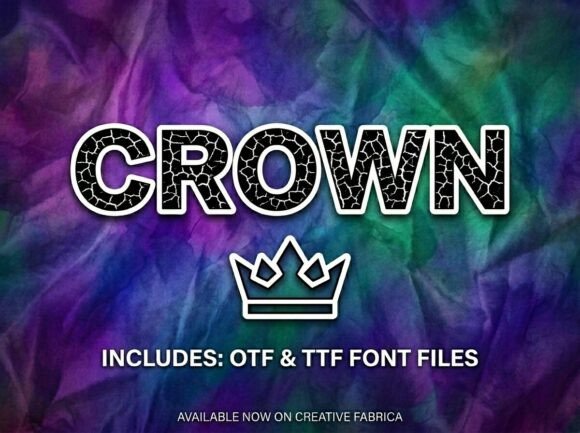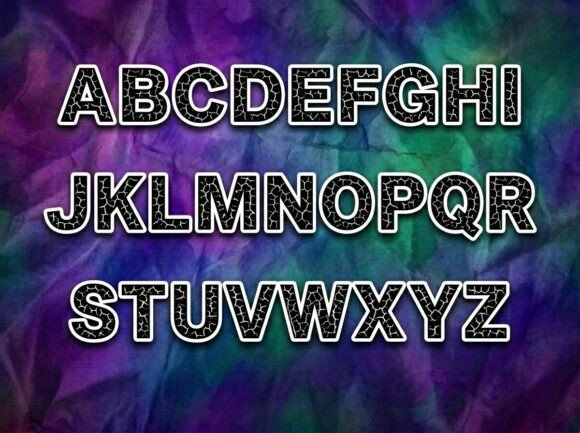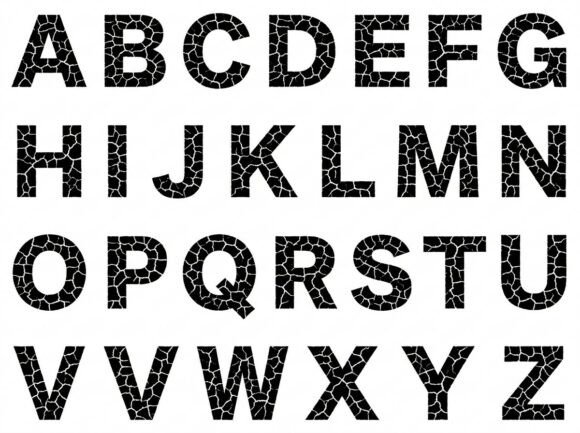
Command Royal Attention with Crown Font: The Ultimate Display Typeface for Bold Designs
In the world of typography, a font can make or break the visual impact of a design. For those seeking to command attention and exude a sense of power, look no further than Crown, a premium display font that embodies the perfect blend of majesty and ruggedness. This exceptional typeface is designed to elevate your visual communication, making it an ideal choice for designers and crafters looking to create bold, eye-catching graphics.
The Unique Characteristics of Crown Font
Crown font boasts bold, sans-serif letterforms that are instantly striking. What sets it apart, however, is its intricate “cracked” or “spider-web” texture, reminiscent of aged stone, parched earth, or vintage ceramic glaze. This distinctive feature gives Crown a high-contrast silhouette and a unique tactile energy that is unmatched by other display fonts. The result is a typeface that conveys a sense of ancient power and unscripted artisanal grit, perfect for designs that require a fearless and timeless aesthetic.
Ideal Applications for Crown Font
Crown font is incredibly versatile and can be used in a variety of design applications. Its bold and rugged characteristics make it an excellent choice for:
- Adventurous Outdoor Branding: Whether you’re designing a logo for a hiking gear company or an outdoor apparel brand, Crown font is sure to make a statement. Its rugged texture and majestic presence evoke a sense of adventure and resilience, perfect for brands that want to stand out in the great outdoors.
- Heavy Metal Band Posters: For music enthusiasts and designers alike, Crown font is a godsend. Its bold, edgy aesthetic is tailor-made for heavy metal band posters, adding a touch of aggression and intensity to any design.
- High-Stakes Gaming Titles: In the world of gaming, a bold and attention-grabbing title can make all the difference. Crown font delivers, with its unique blend of ruggedness and sophistication. Whether you’re designing a title for a video game or a high-stakes tournament, Crown font is sure to command attention.
- Edgy Lifestyle Graphics: For designers looking to create bold, edgy graphics for lifestyle brands, Crown font is an excellent choice. Its fearless aesthetic and tactile energy make it perfect for designs that require a bit of attitude and swagger.
Why Choose Crown Font?
So, what sets Crown font apart from other display fonts on the market? Here are just a few reasons why designers and crafters are flocking to this exceptional typeface:
- Timeless Aesthetic: Unlike trendy fonts that quickly go out of style, Crown font boasts a timeless aesthetic that will remain relevant for years to come. Its classic, bold letterforms and unique texture ensure that your designs will stand the test of time.
- Fearless and Unapologetic: Crown font is not for the faint of heart. It’s a bold, fearless typeface that demands attention and commands respect. If you’re looking to make a statement with your designs, Crown font is the perfect choice.
- Unparalleled Versatility: Whether you’re designing a logo, poster, or social media graphic, Crown font is incredibly versatile. Its rugged texture and majestic presence make it suitable for a wide range of design applications.
In conclusion, Crown font is a premium display typeface that is sure to command royal attention. Its unique blend of majesty and ruggedness, coupled with its intricate texture and bold letterforms, make it an exceptional choice for designers and crafters looking to create bold, eye-catching graphics. Whether you’re designing for adventurous outdoor brands, heavy metal bands, high-stakes gaming titles, or edgy lifestyle graphics, Crown font delivers a sense of ancient power and unscripted artisanal grit that is unmatched by other fonts on the market. So why settle for ordinary when you can command attention with Crown font?
- Bold, sans-serif letterforms
- Intricate “cracked” or “spider-web” texture
- High-contrast silhouette and unique tactile energy
- Perfect for adventurous outdoor branding, heavy metal band posters, high-stakes gaming titles, and edgy lifestyle graphics
- Timeless aesthetic and fearless attitude
- Unparalleled versatility